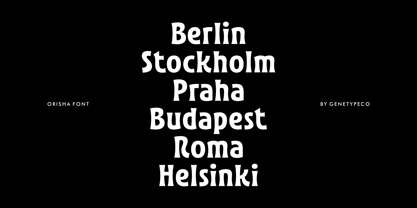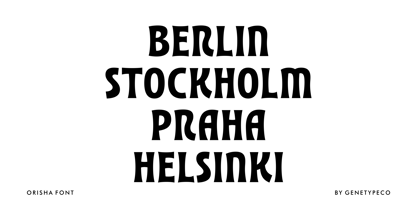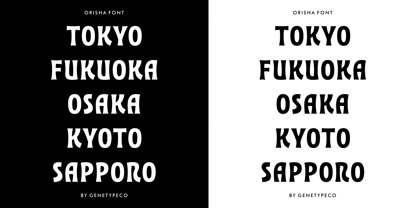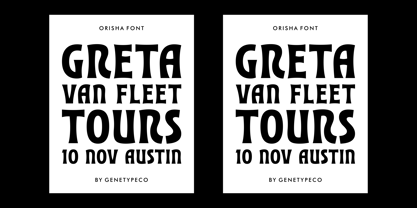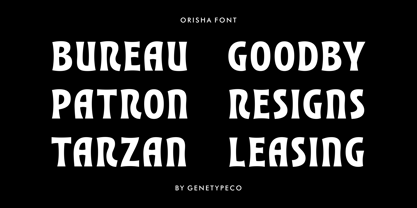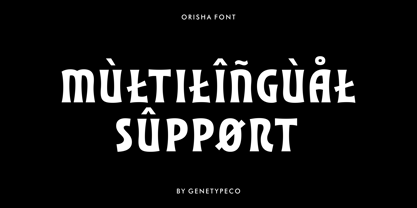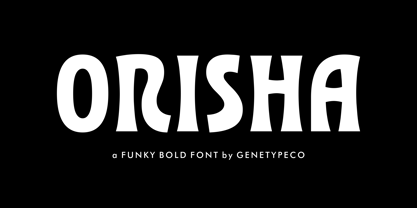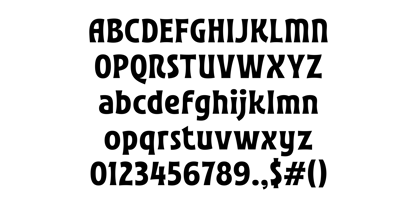
Orisha
by Genetype
The Orisha Font Family was designed by Bagus Arya Kirana and published by Genetype. Orisha contains 1 styles. More about this family
Say hello to Orisha, a bold and quirky display font with smooth organic curves and a playful soul. Designed to make your words pop, it's perfect for standout headlines, creative branding, posters, packaging, and more.
This font brings the fun while keeping things bold and eye-catching.
Just type it out—and let the groove take over!